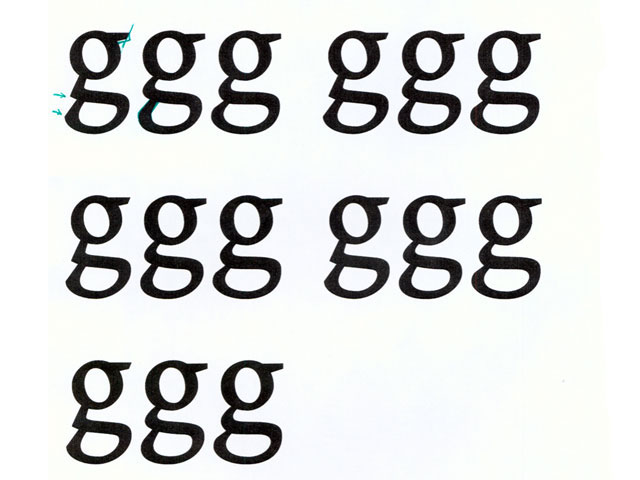
![]() ![]() ![]() bible type basic info : presentation half way : Latest news: nothing's gonna stop them now - click here to see more ![]() Subject: Bible type -meeting Saturday Date: Thu, 14 Nov 2002 11:48:05 +0200 (EET) From: Kurppa Hanna - hkurppa@uiah.fi ...anyway, we had a group meeting on Saturday and discussed about different approaches on the missing characters. It was mainly me and Heikki, Susana couldnÇt make it and Kirsi visited briefly. From now on we will be continuing with (at least) two versions of Spiritus. HeikkiÇs will be slightly tilted, but mybe the (aligned capital height) numbers will be straight. I will more or less continue on the same path and try to identify the key forms and sculpt the letters from where we left at the end of the course. I have designed a two-storey g, Heikki wanted to try out an open one. The final result will propably be a third version based on ideas found while working separately. We will try to meet within the next two weeks and put together our stuff... ![]() ![]()